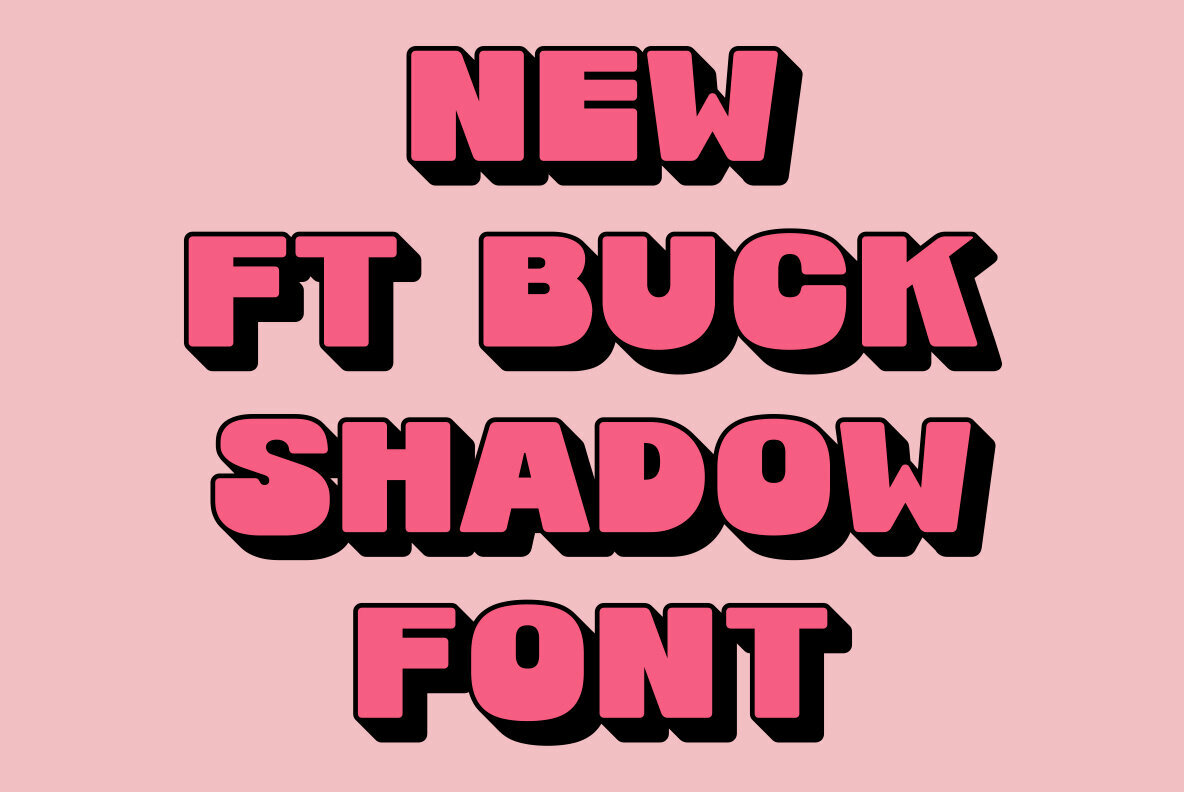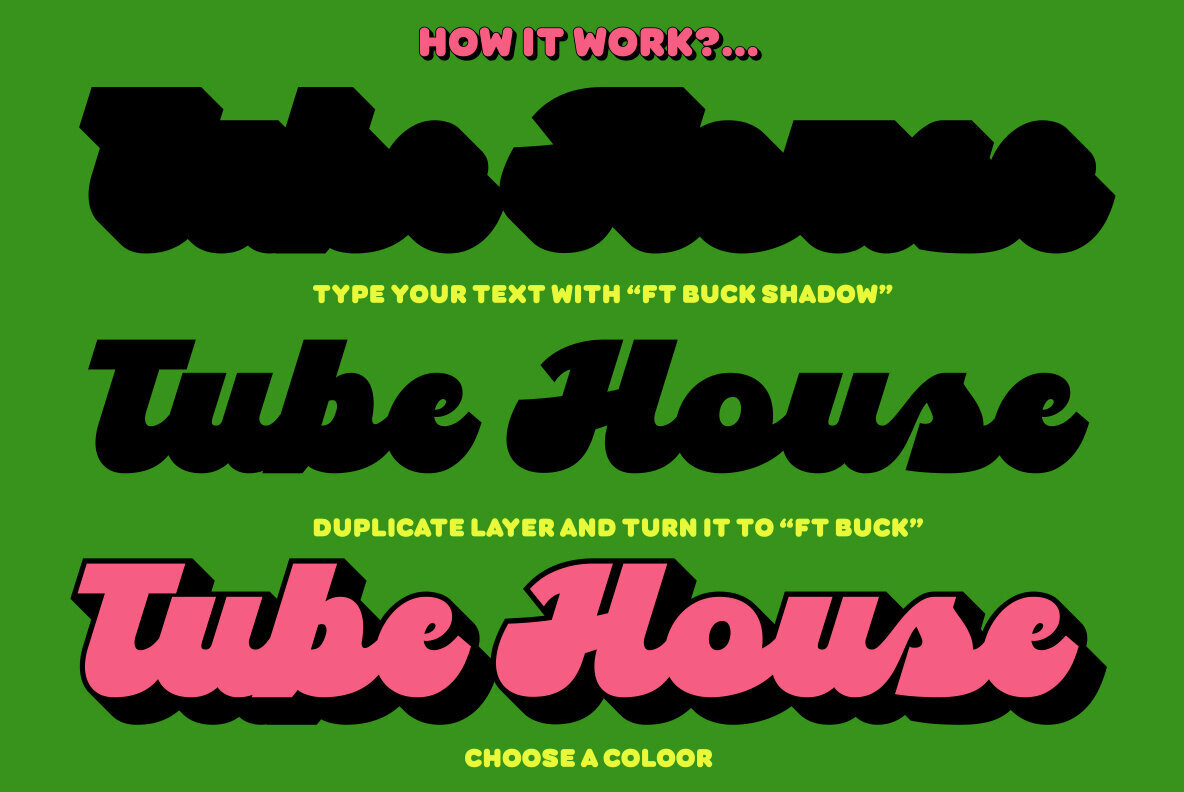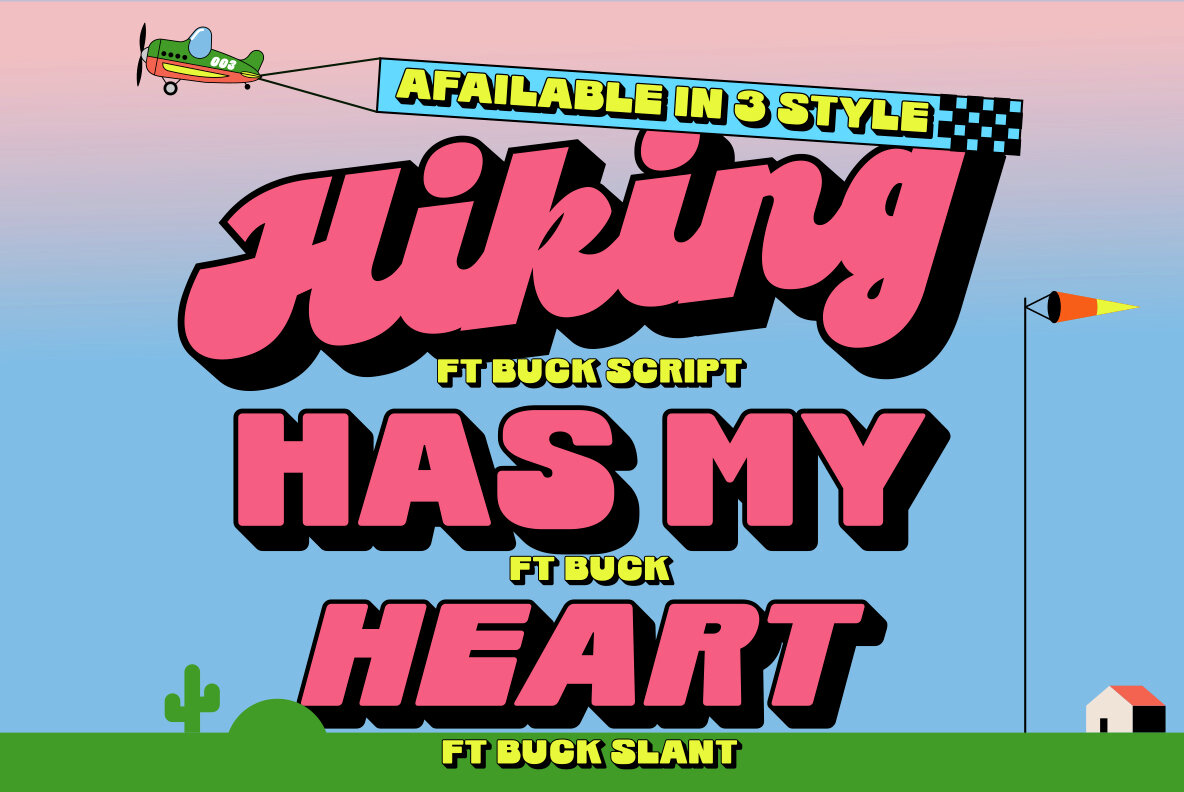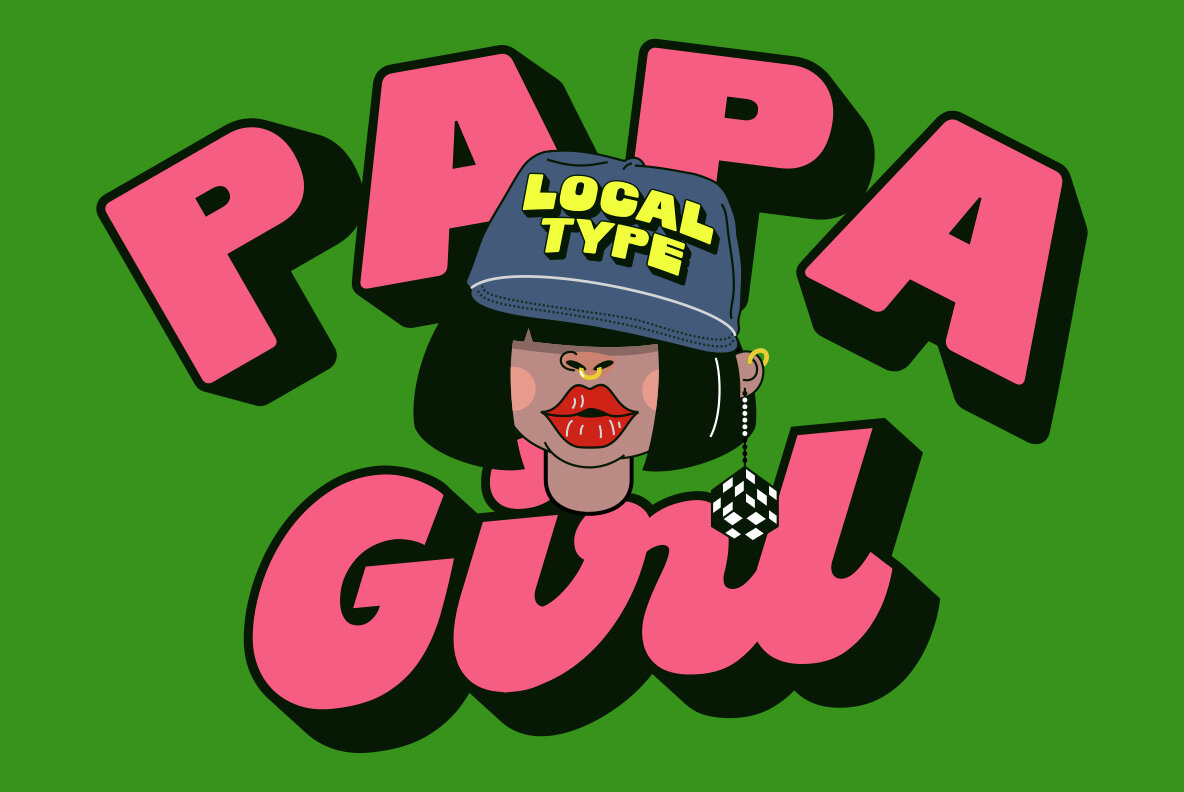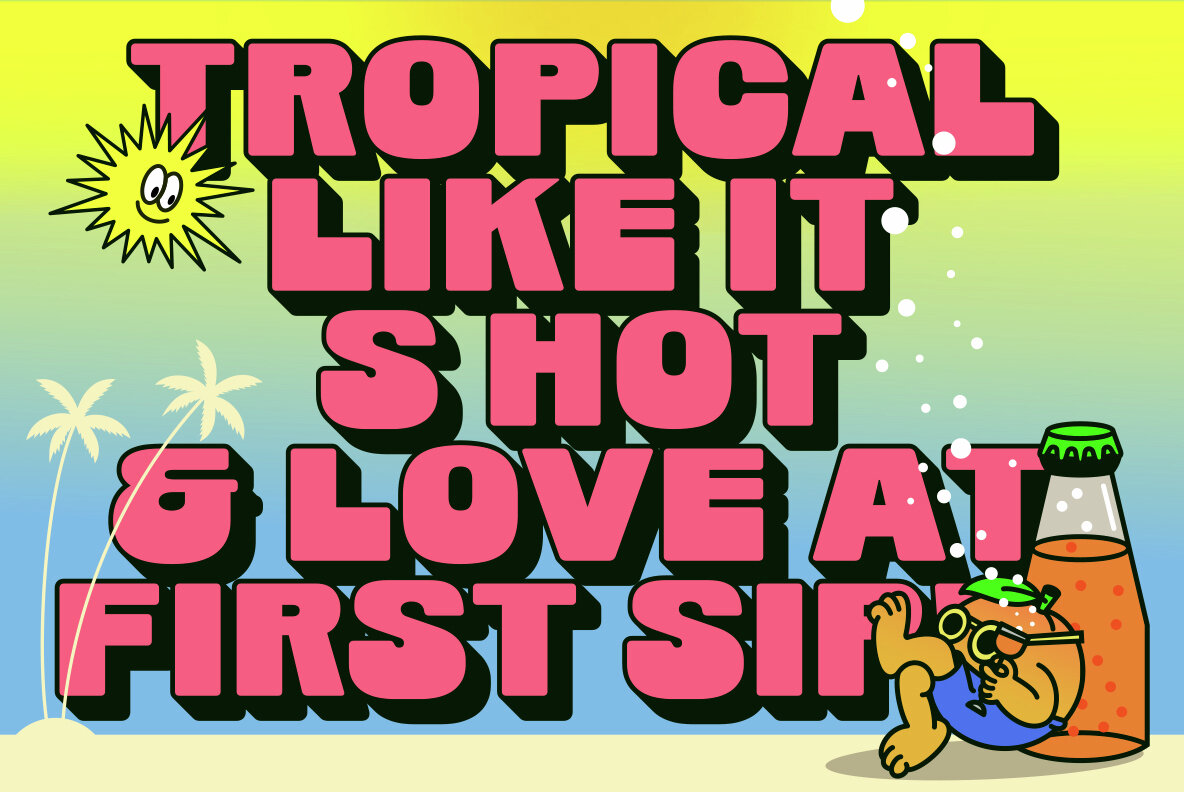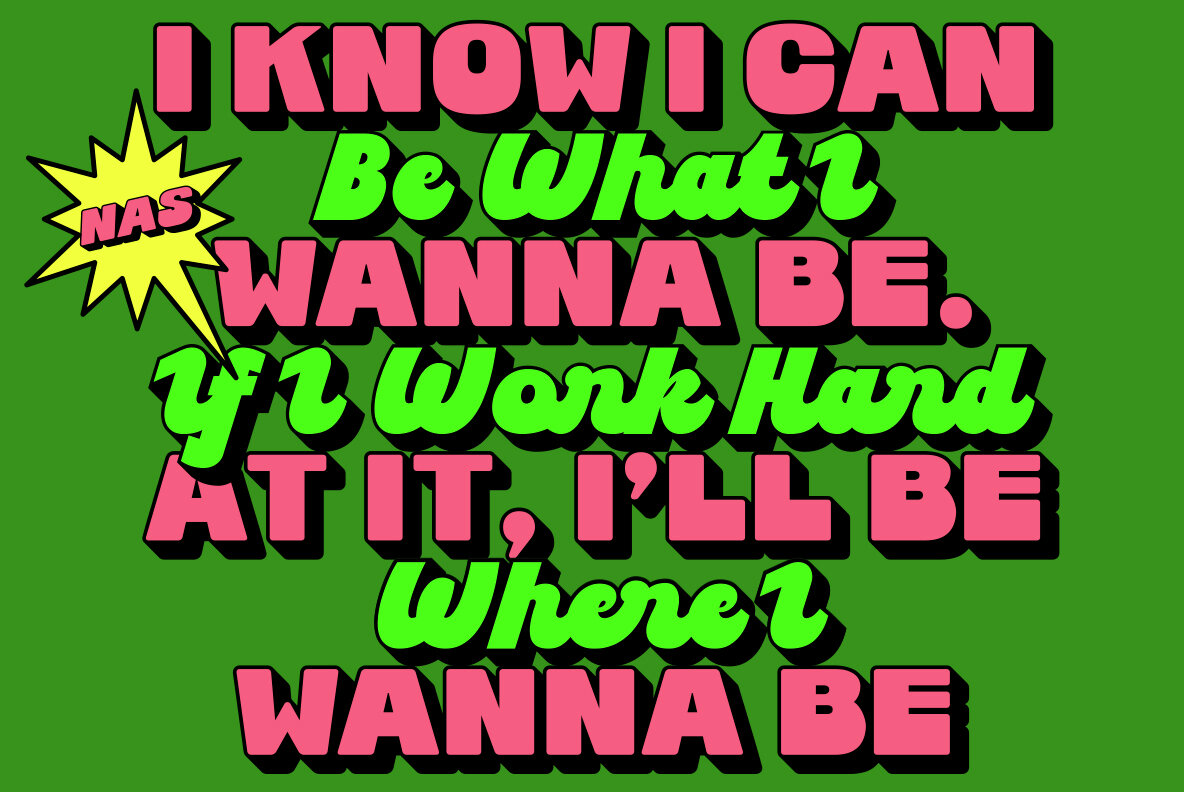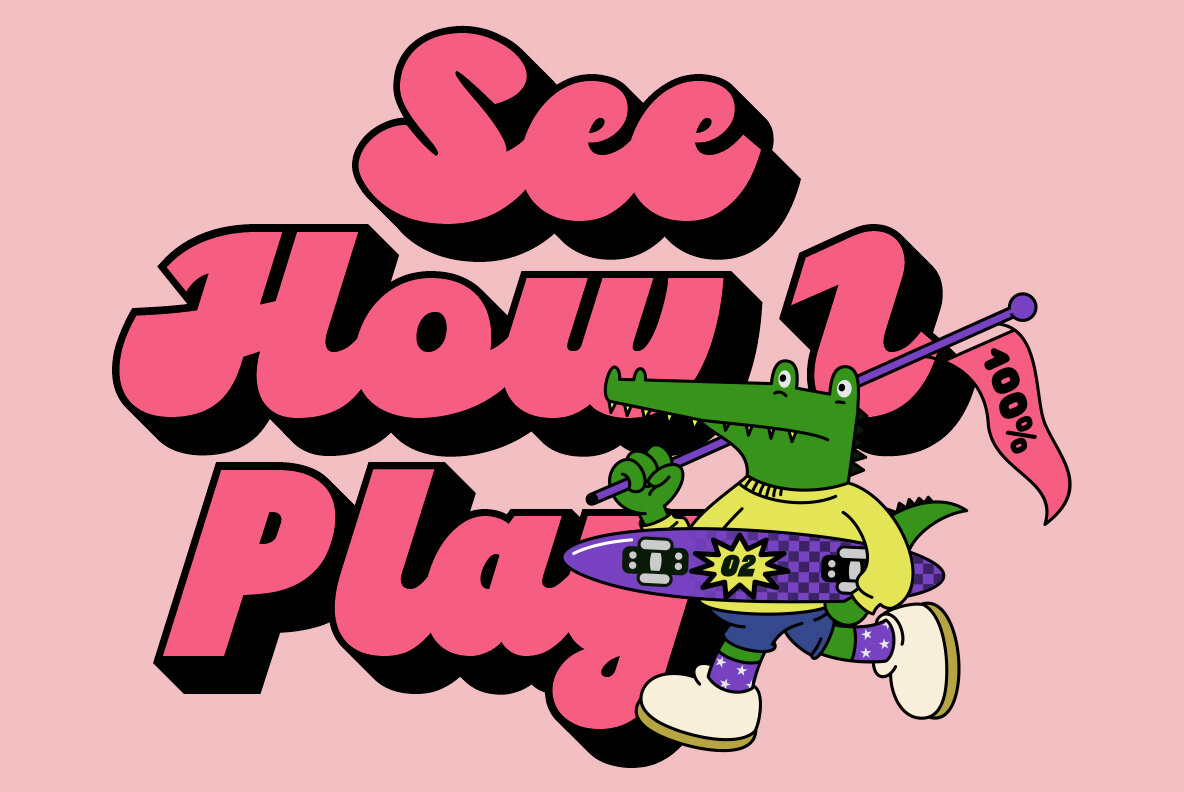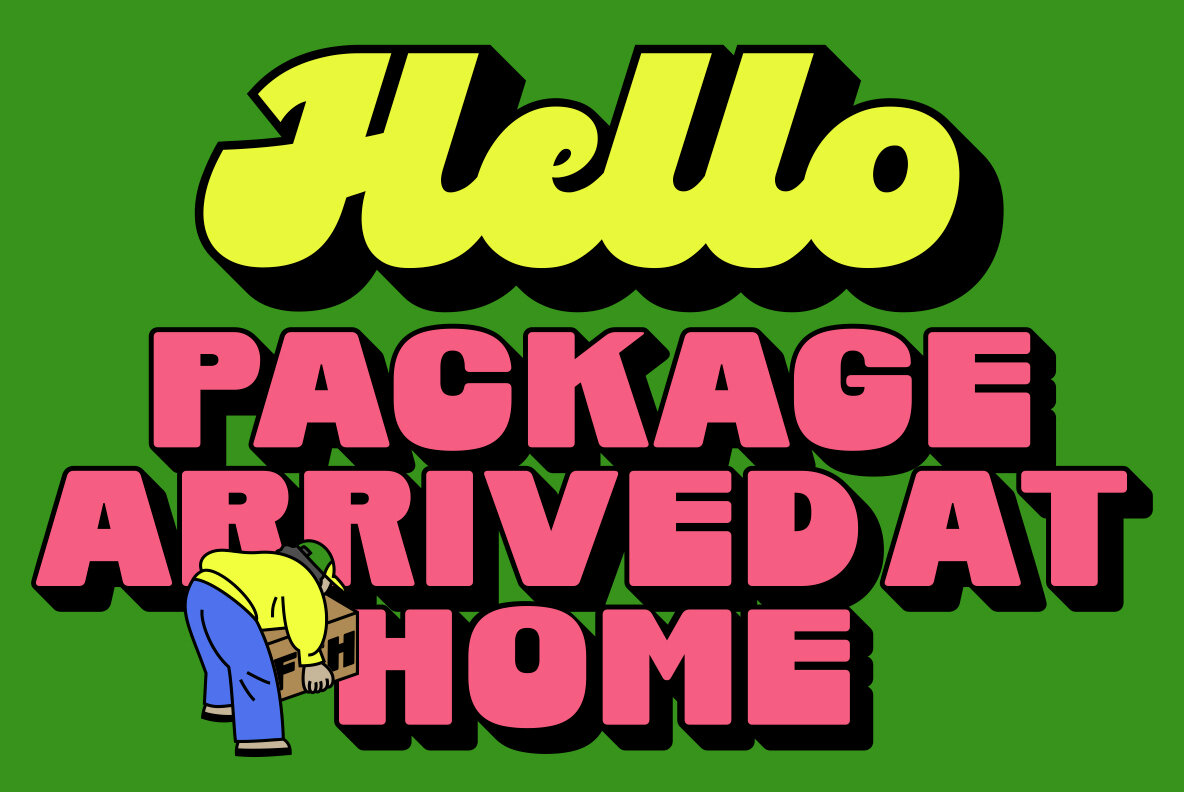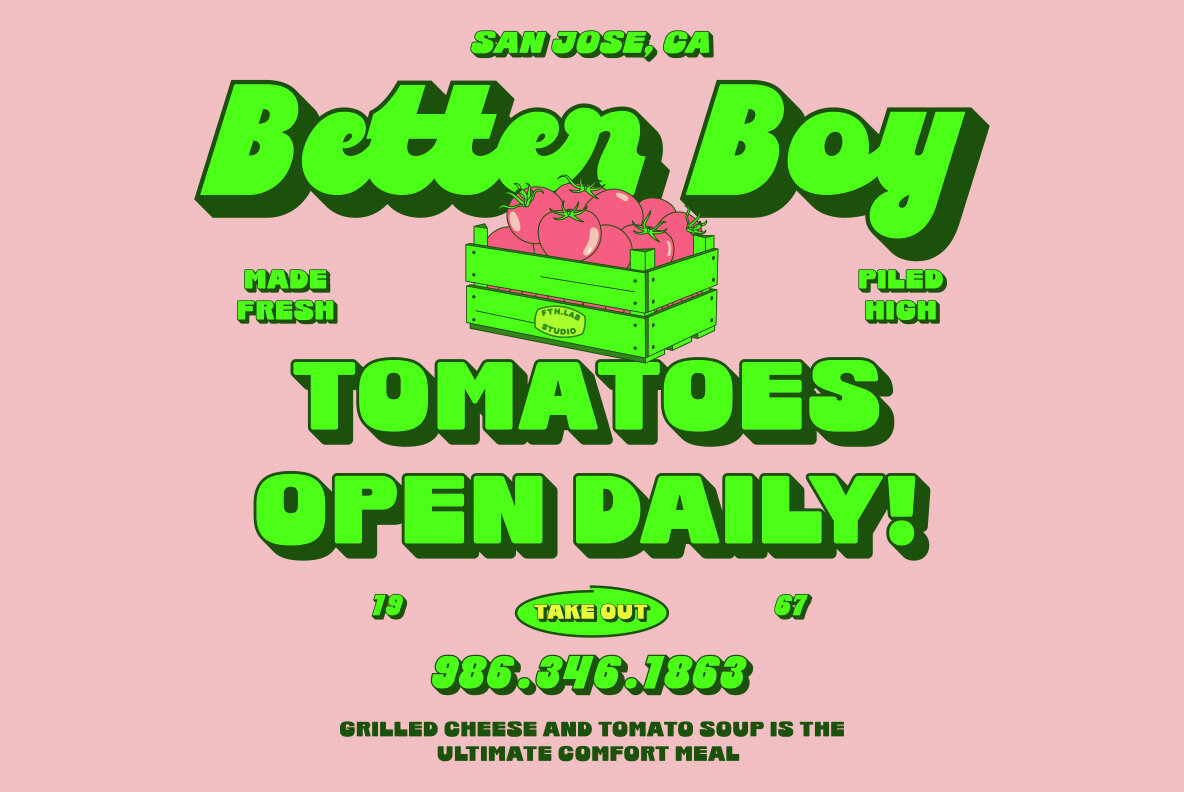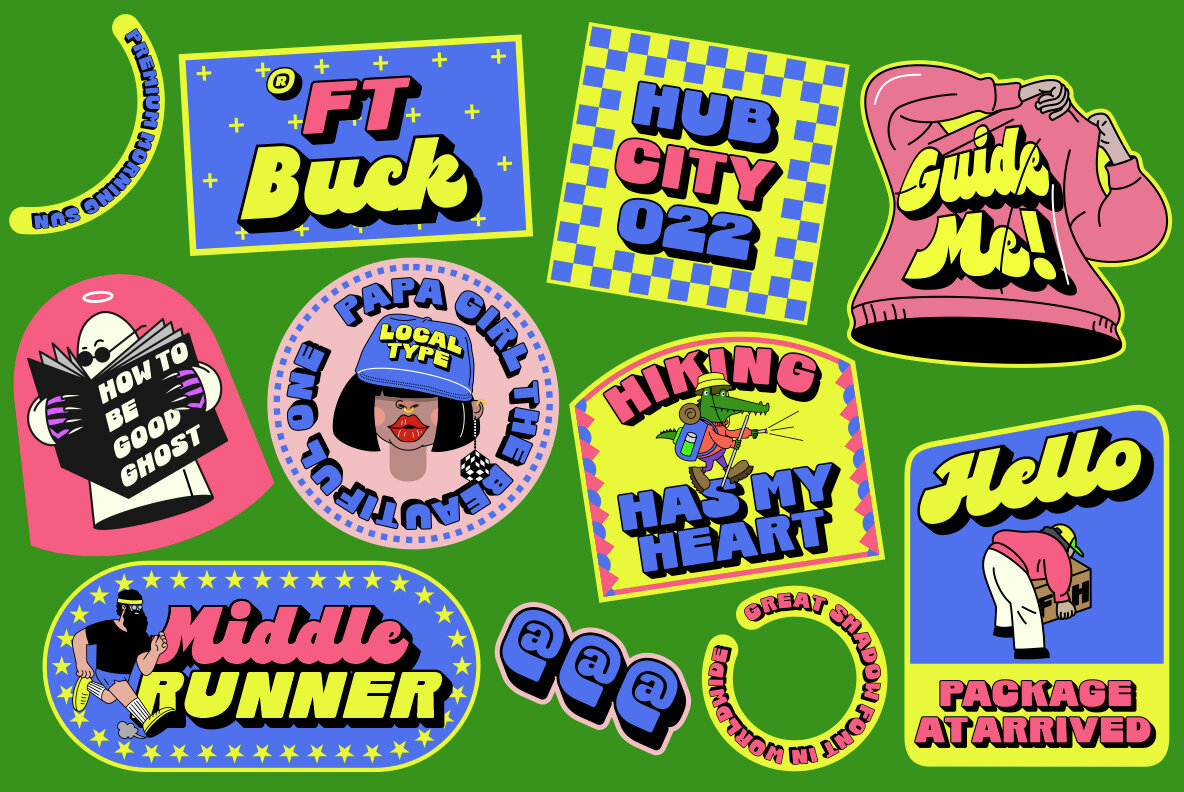
Ft Buck Font
Ft Buck is the latest work released from Fateh, Lab! This is a type of shadow font, and it marks the beginning of a shift in current design trends. With a soft yet bold typographic style, Ft Buck has all the elements of life in today's design world. With support for three font styles, this is the right answer for those of you who are designing something great. It has superior weight in posters, social media, news headlines, magazine headlines, clothing, and large print formats—and wherever you want to see it.
Fateh.Lab is a type studio based in Indonesia led by designer Wisnu Cipto Wibowo. Their work is defined by a vibrant typographic spirit and an eye for contemporary aesthetic cues. Each font from Fateh.Lab reflects a thoughtful balance between function and visual personality, designed not just to serve modern n...